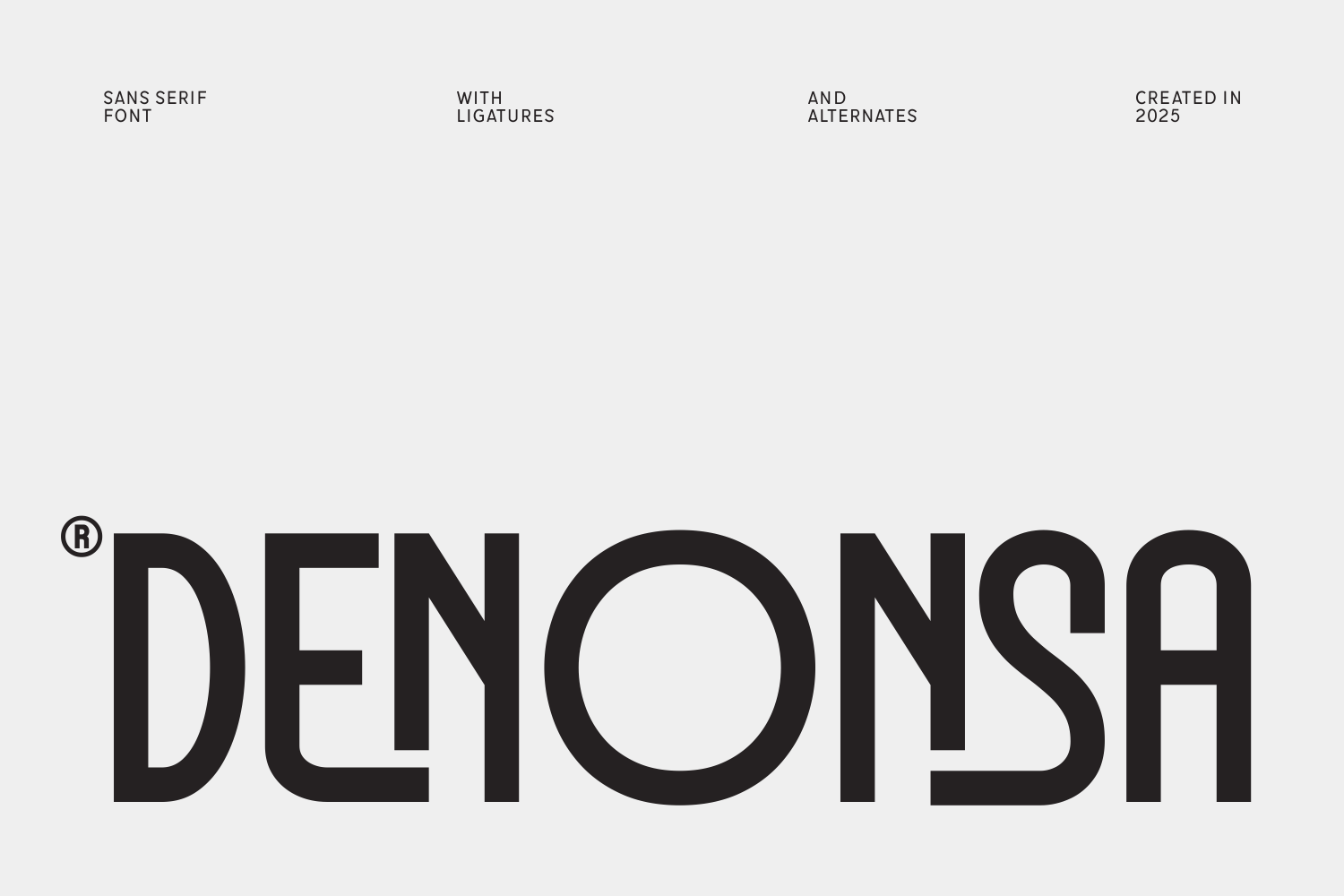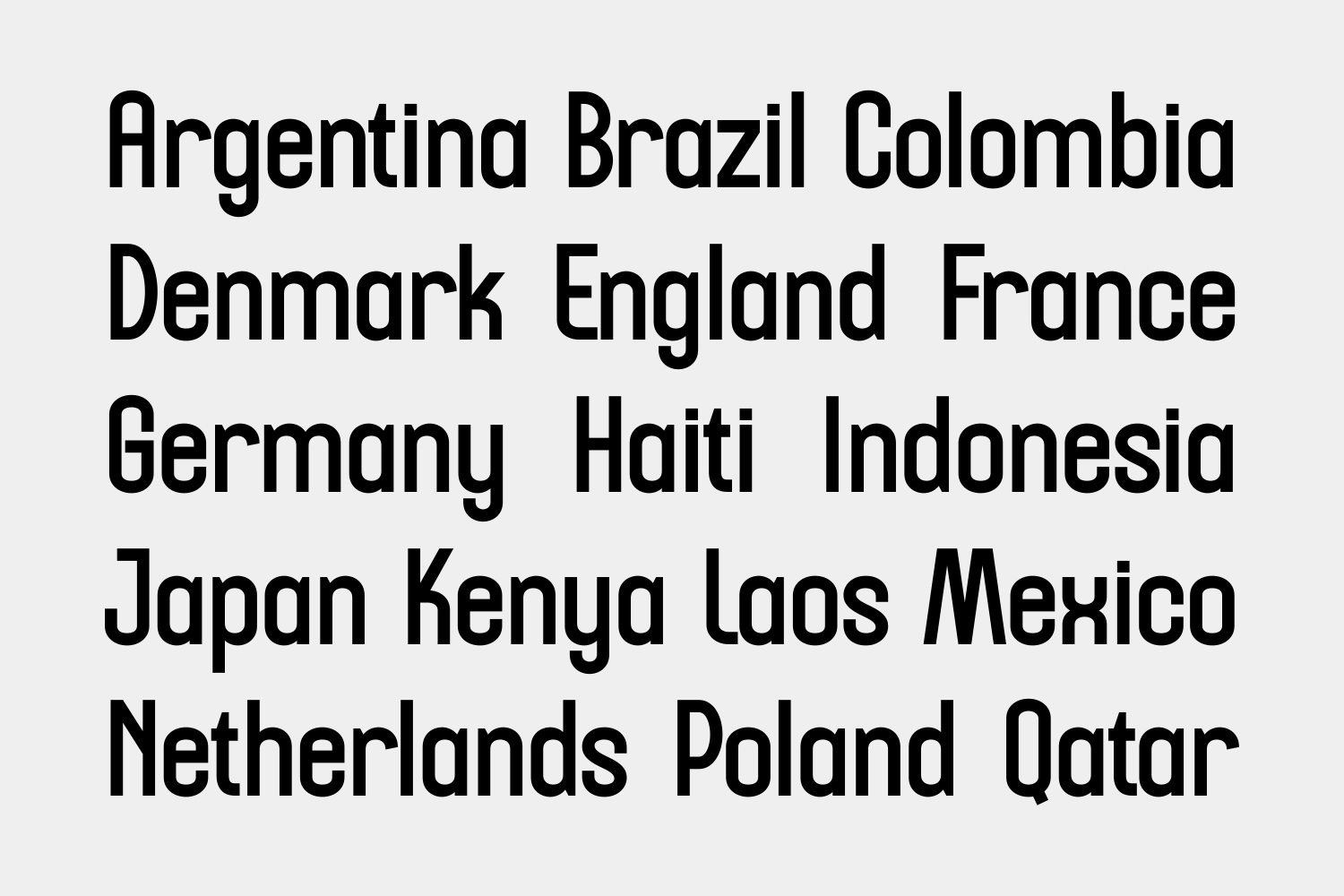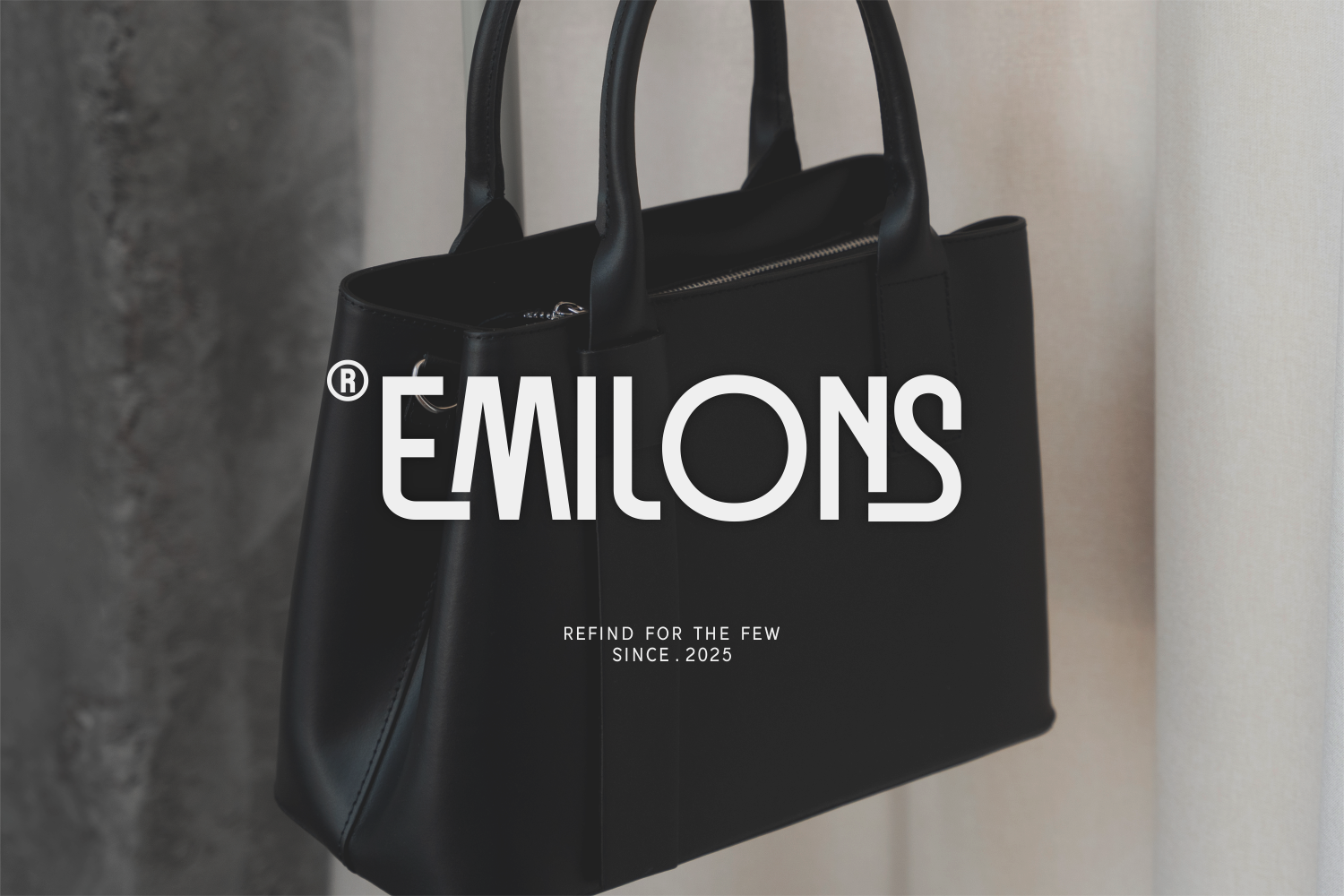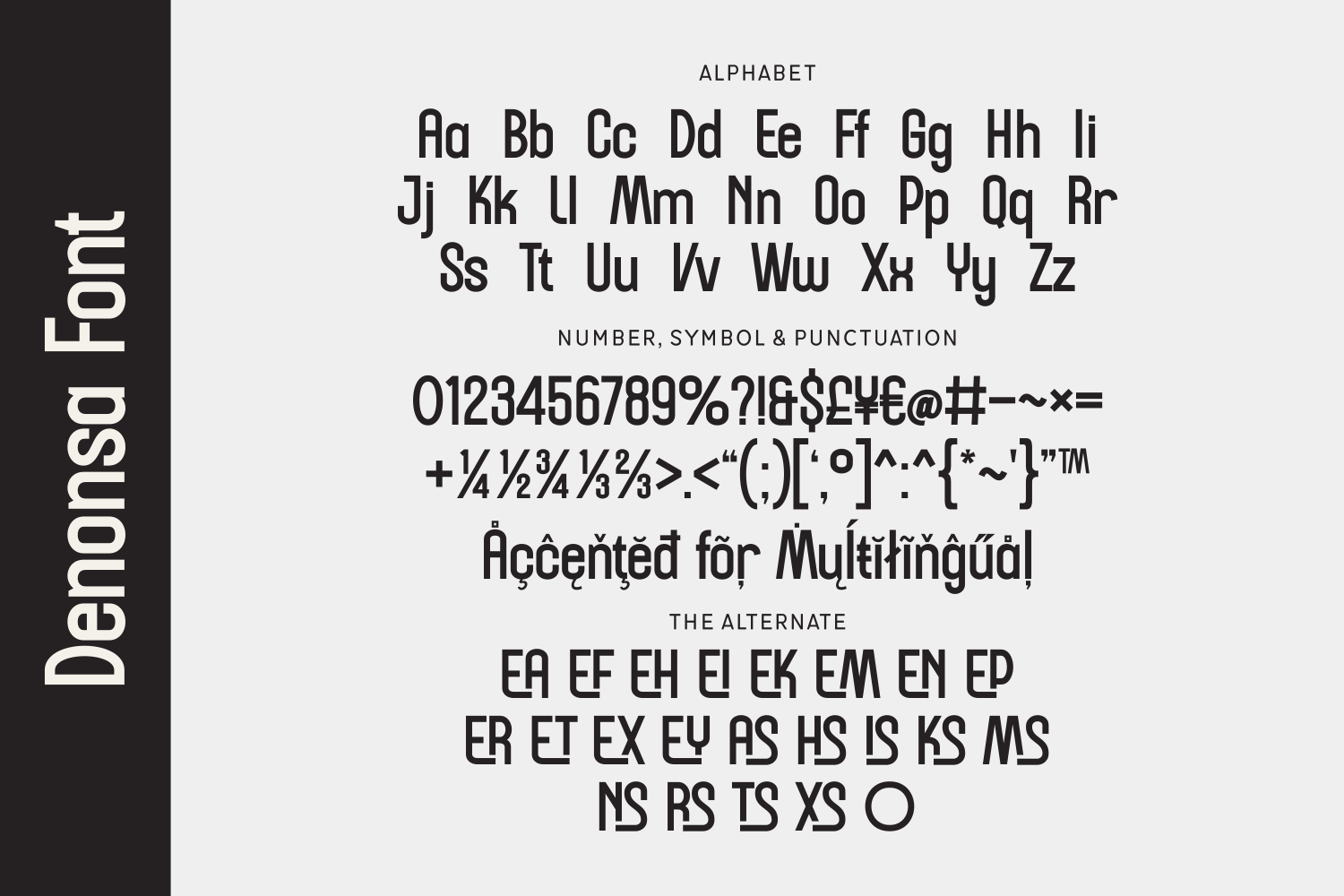
Denonsa is a bold and futuristic sans serif font crafted with precision and style.
Denonsa supports multilingual characters and a complete punctuation set, making it as functional as it is striking. With its confident silhouette and versatile applications, this font is an ideal choice for brands seeking to leave a refined, memorable impression.